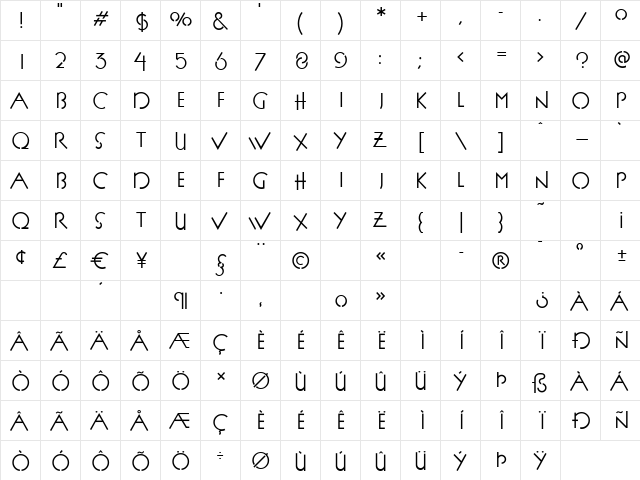
P22 FLLW Exhib Regular Regular
| Foundry | P22 type foundry |
| Designer | Frank Lloyd Wright, Christina Torre |
Design Context for P22 FLLW Exhib Regular Typeface
P22 FLLW Exhib Regular is a composed and adaptable typeface that performs quietly and consistently across a wide range of design contexts.